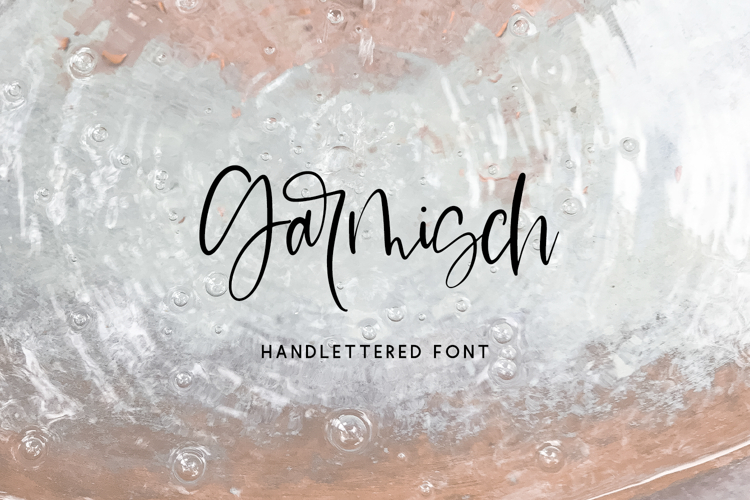
Say hello to Garmisch Script, a modern calligraphy style font featuring thin clean lines and casually handlettered characters.
Garmisch Script is best for:
- website design + website accents - think travel blogs, fashion blogs, & more
- 5 alternate characters - r, i, n, p, t
- 9 ligatures - ar, cr, er, ft, in, ir, or, tt, ur